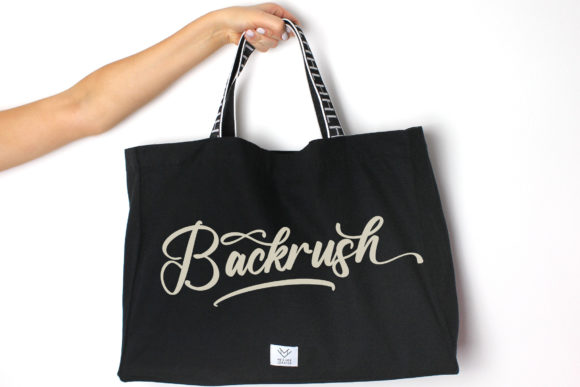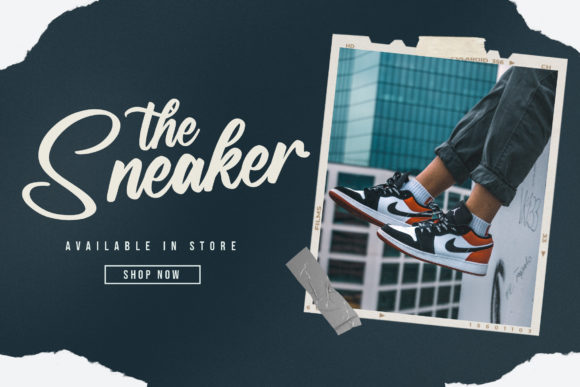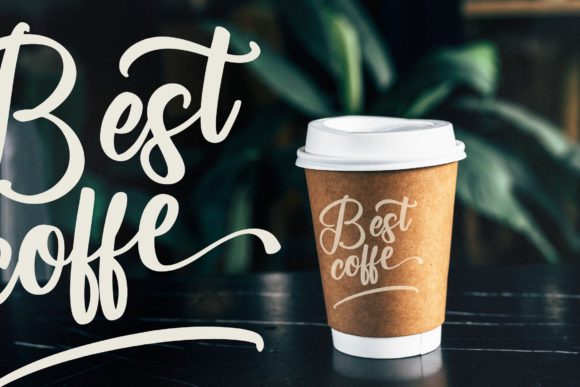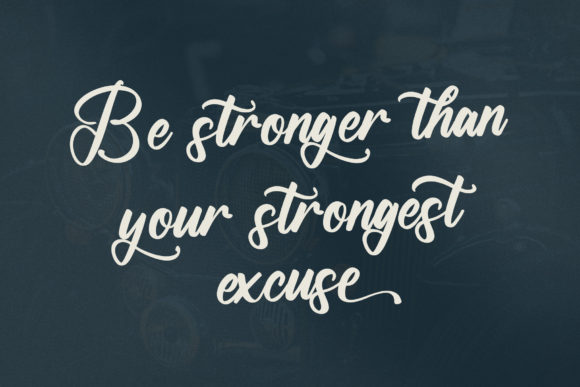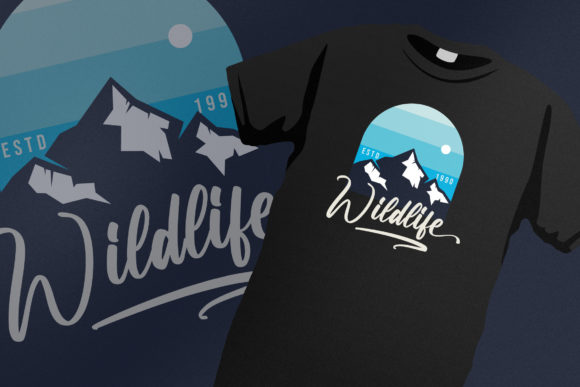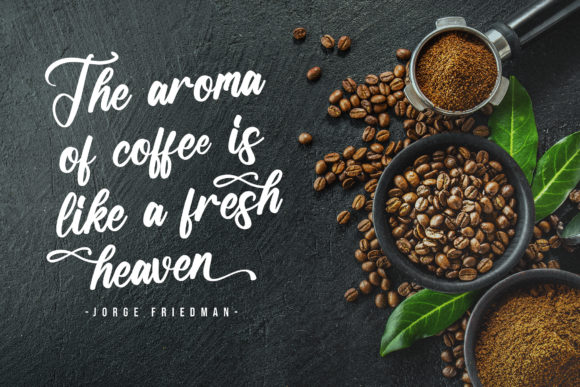
Introducing Backrush Font: Elevate Your Designs with Elegance
In the world of typography, fonts play a crucial role in conveying the message and aesthetic of a design. For designers and crafters looking to add a touch of sophistication and elegance to their projects, Backrush Font is an exceptional choice. This gorgeous script font is designed to captivate with its ravishing style, making it perfect for creating stunning designs that stand out.
The Beauty of Backrush Font
Backrush Font boasts a beautiful, flowing script style that exudes elegance and refinement. Its unique and intricate design makes it an excellent choice for a wide range of projects, from wedding invitations and branding materials to digital content and craft projects. The font’s gorgeous appearance is sure to leave a lasting impression on your audience, setting your designs apart from the rest.
One of the standout features of Backrush Font is its PUA (Private Use Area) encoding. This means that users can access all glyphs and swashes with ease, allowing for greater flexibility and creativity in design. PUA encoding enables you to unlock the full potential of the font, making it simple to incorporate intricate details and flourishes into your work.
Backrush Font is an ideal choice for designers and crafters looking to elevate their projects with a touch of sophistication. Whether you’re working on:
- Branding materials and logos
- Digital content and social media graphics
- Craft projects and DIY tutorials
- Signs and displays
Backrush Font is versatile enough to enhance any design with its beautiful script style.
Why Choose Backrush Font?
With so many fonts available, why choose Backrush Font? Here are just a few reasons:
- Unique Style: Backrush Font offers a distinctive and ravishing style that will set your designs apart.
- Ease of Use: With PUA encoding, accessing glyphs and swashes is simple and straightforward.
- Versatility: Suitable for a wide range of projects, from digital content to craft projects.
- Elegance: Adds a touch of sophistication and refinement to any design.
Tips for Using Backrush Font
To get the most out of Backrush Font, consider the following tips:
- Experiment with Swashes: Use the glyphs and swashes to add unique touches to your design.
- Mix and Match: Combine Backrush Font with other fonts to create stunning contrast and visual interest.
- Play with Size and Color: Experiment with different sizes and colors to make your design pop.
Backrush Font is a gorgeous script font that is sure to captivate with its ravishing style. With its PUA encoding and elegant design, it’s the perfect choice for designers and crafters looking to elevate their projects. Whether you’re working on a wedding invitation, branding materials, or a craft project, Backrush Font is an excellent choice. So why wait? Fall for the beauty of Backrush Font and use it to create stunning designs that leave a lasting impression.